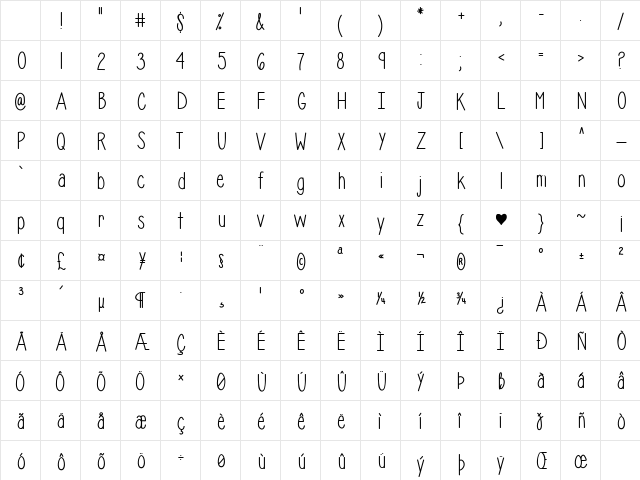
IsabelleLayne Medium Free Font
IsabelleLayne Medium
Designer: Vanessa Bays
IsabelleLayne Family
IsabelleLayne Medium
Design Context for IsabelleLayne
IsabelleLayne is a composed and adaptable typeface that performs quietly and consistently across a wide range of design contexts.
Pro Tip: Use IsabelleLayne in both headline and body roles to test its range before committing to a single application.